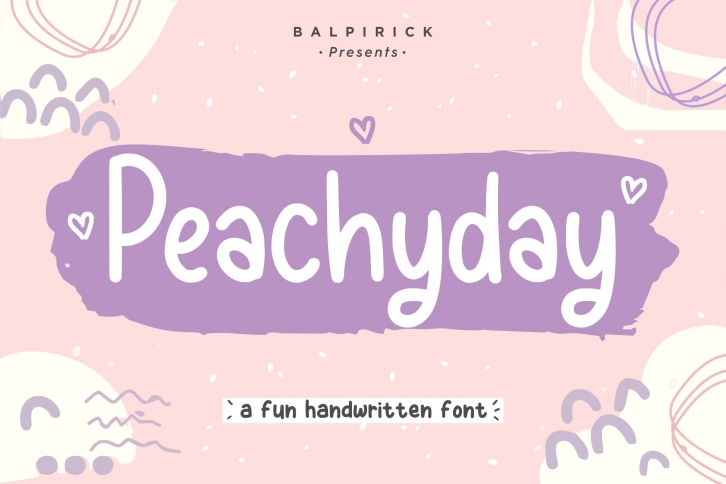
Peachyday Fun Handwritten is a beautiful font that was designed by Balpirick. It's a great choice for designers and creatives who need such a font. It was released on May 12, 2020 and the file size is 7.34 MB. Peachyday Fun Handwritten may give a more youthful, expressive and casual look to your project. It is a very beautiful, refined, elegant, and high-quality font.